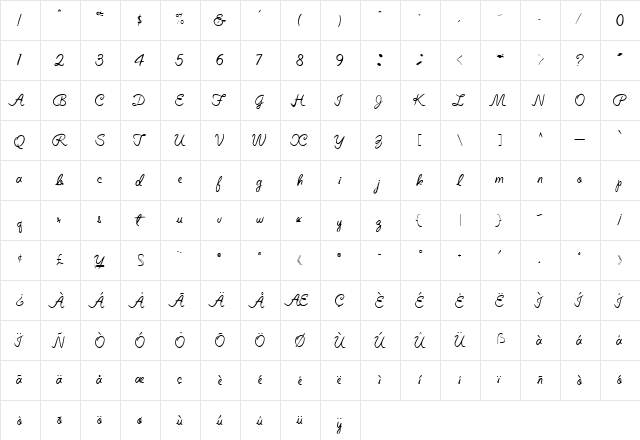
Elizabeth Semi-Script Regular
Design Context for Elizabeth Semi-Script Typeface
Elizabeth Semi-Script flows with the natural rhythm of handwritten lettering, making it ideal for designs that call for warmth and personal expression.
Font Pairing: Combine Elizabeth Semi-Script with a simple geometric sans for maximum contrast — the tension between flowing curves and clean structure is a classic typographic pairing.
Pro Tip: Use Elizabeth Semi-Script for short runs of text — names, titles, or taglines. Extended body copy in script faces tires the eye quickly.